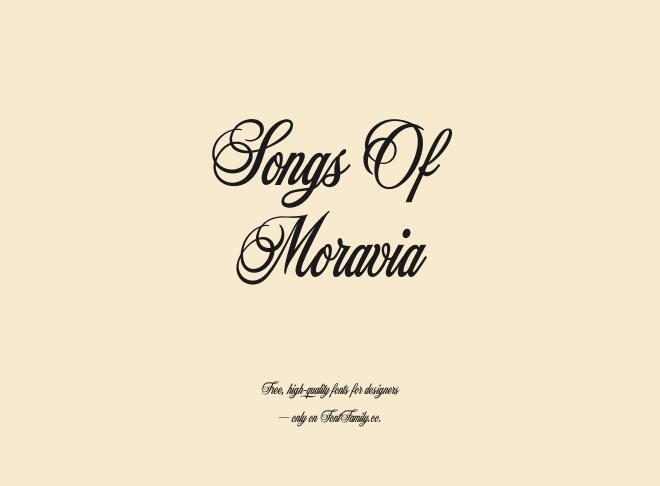
Songs Of Moravia Font
Songs Of Moravia Font is a unique handwritten typeface with a rustic and playful appeal. Its decorative style is reminiscent of traditional Moravian folk art, making it perfect for designs that aim to convey warmth, creativity, and a touch of nostalgia. This font pairs well with simple, clean fonts, allowing it to stand out and make a statement. It is ideal for use in greeting cards, book covers, posters, and any design work that requires a personal, artistic touch. Its distinct style sets it apart from other handwritten fonts, and its open font license makes it a valuable addition to any designer's toolkit. Choose Songs Of Moravia Font to bring a sense of charm and character to your design projects.
Author | Moravian Type Foundry |